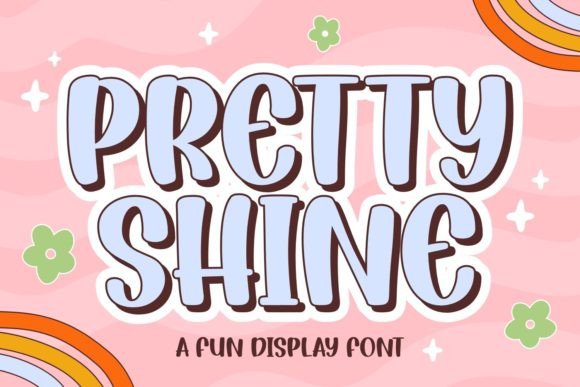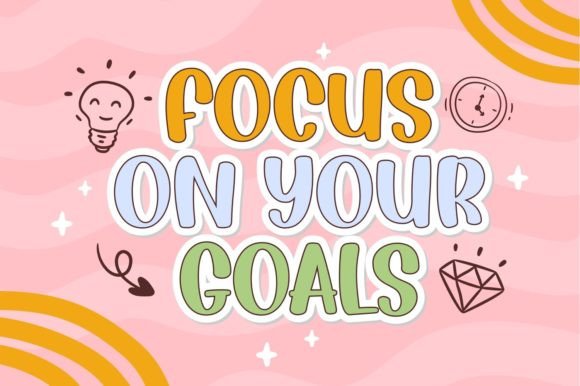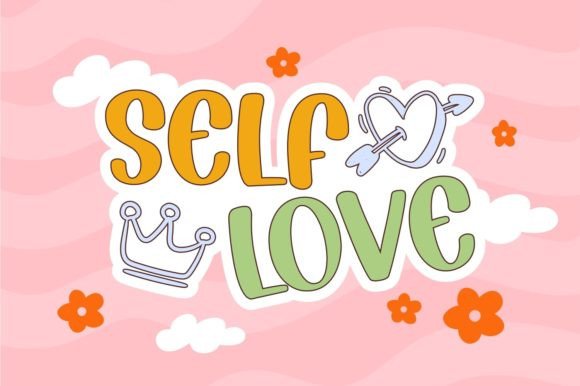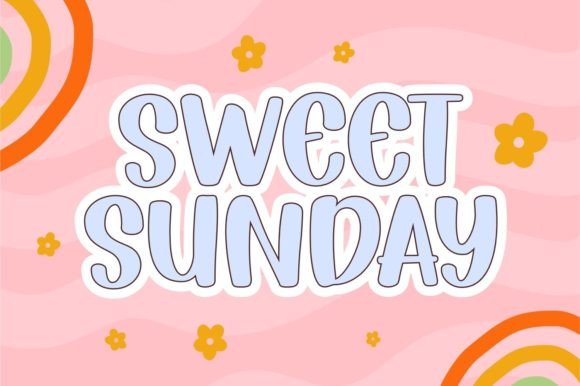
Pretty Shine Font
Pretty Shine is a delightful handwritten font that radiates warmth and cheerfulness. Its whimsical strokes dance across the page, evoking the carefree spirit of rural life. With rounded edges and lively curves, it invites a sense of joy and friendliness to any project or message.